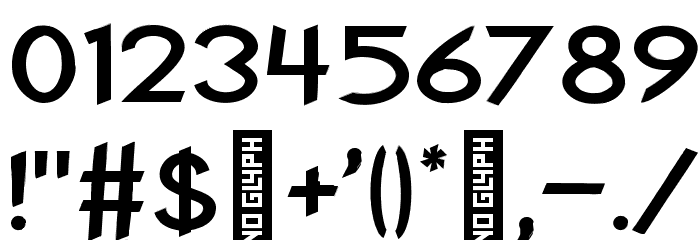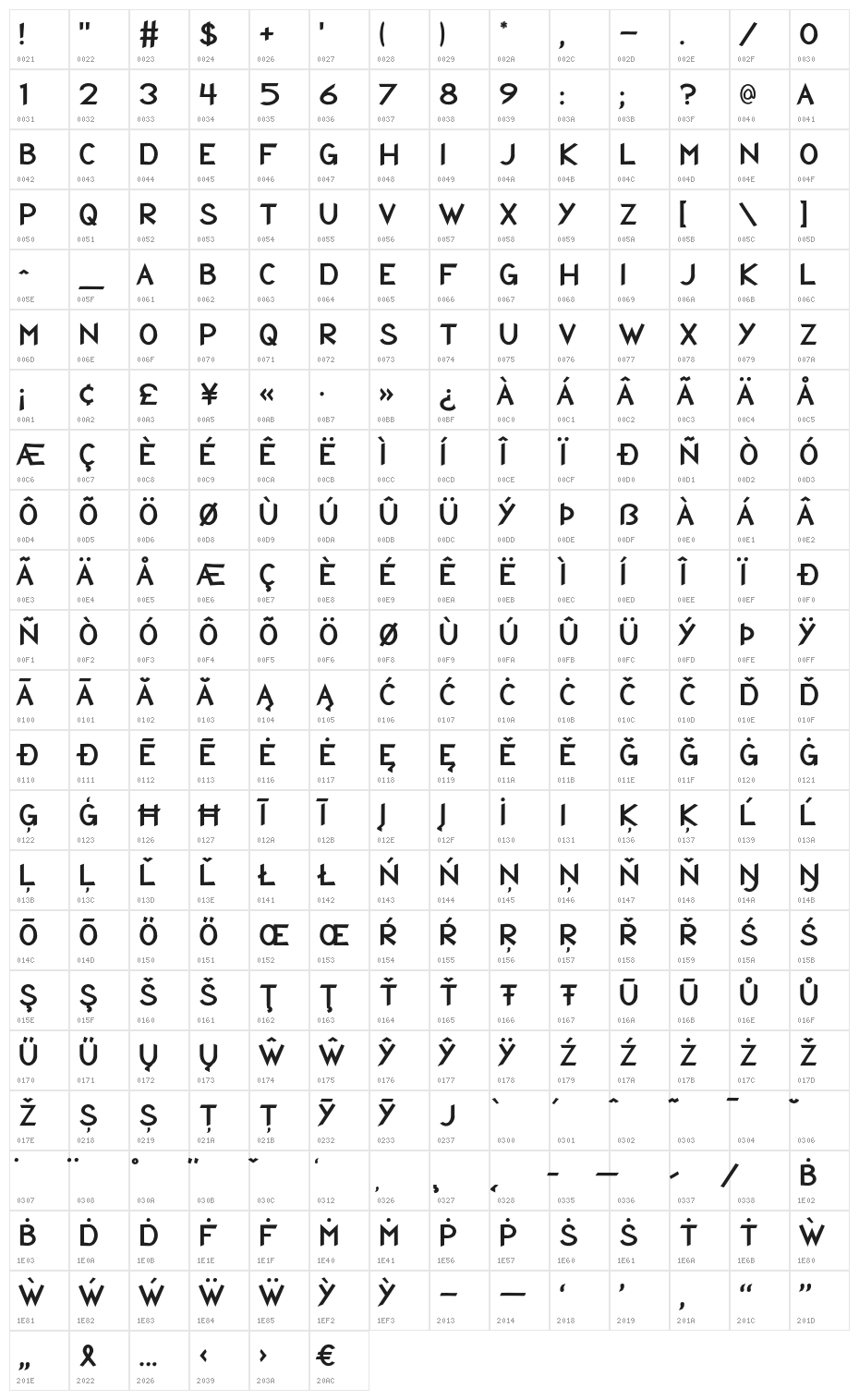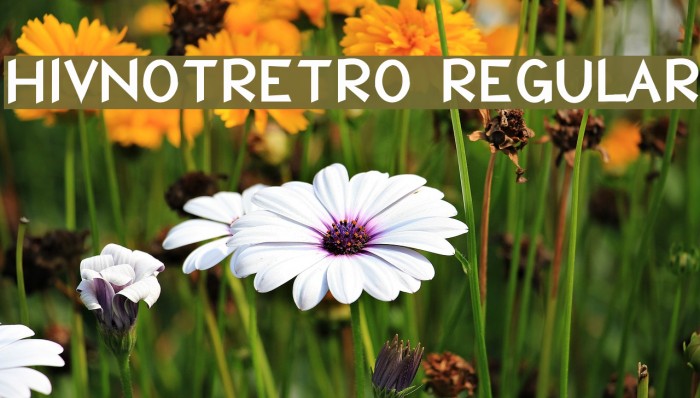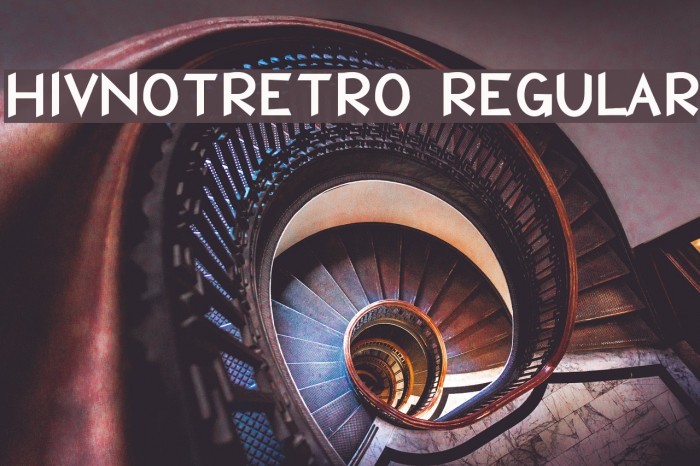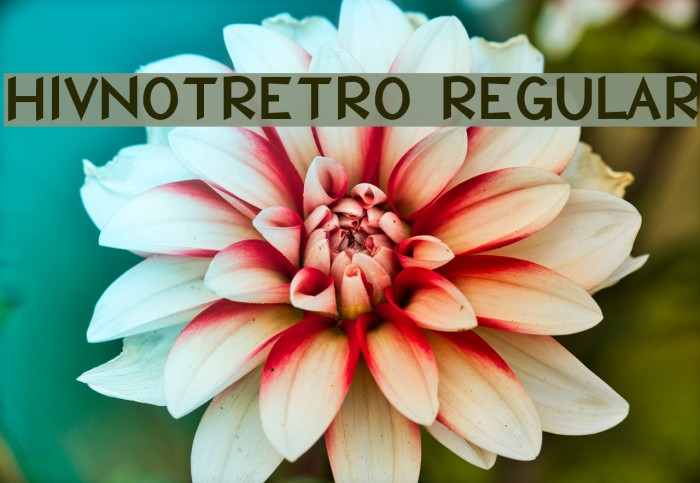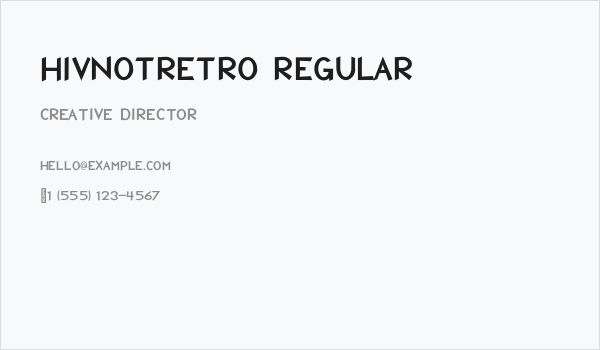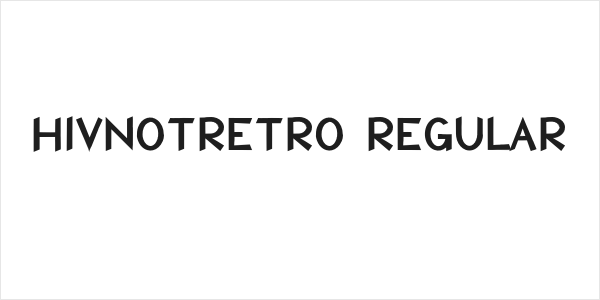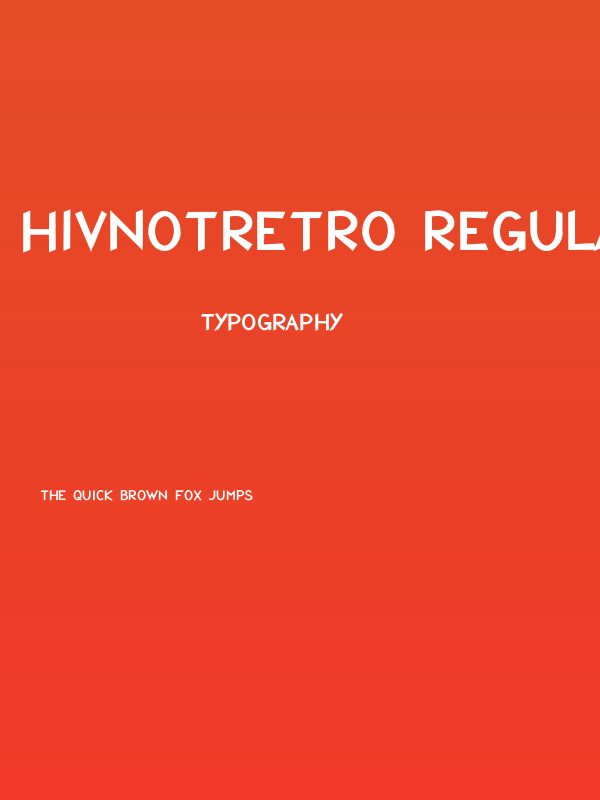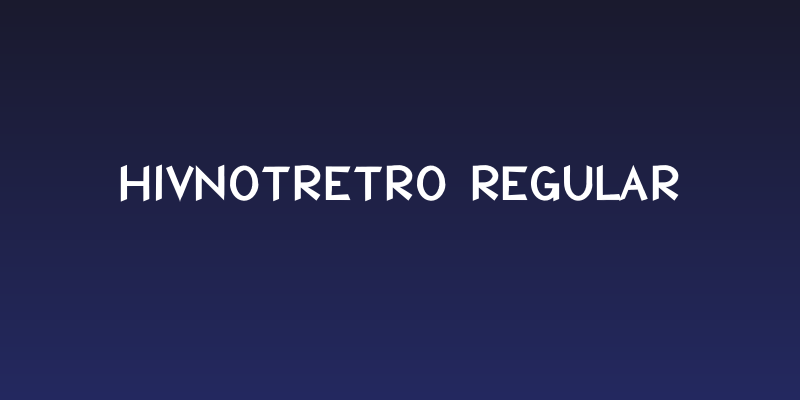
HIVNotRetro Regular Font
HIVNotRetro Regular Description
This font features a bold and dynamic style with sharp, angular lines that give it a modern and edgy appearance. The uppercase and lowercase letters maintain a consistent geometric form, while the numerals and special characters complement the overall aesthetic. The font's distinct angles and clean lines make it stand out, offering a unique visual impact. It's designed to capture attention with its striking presence, making it suitable for projects that require a bold statement. The consistent stroke width across characters ensures readability while maintaining its distinctive style.
| Proposed Projects | Ideal for branding, posters, headlines, and any design needing a bold, modern touch. |